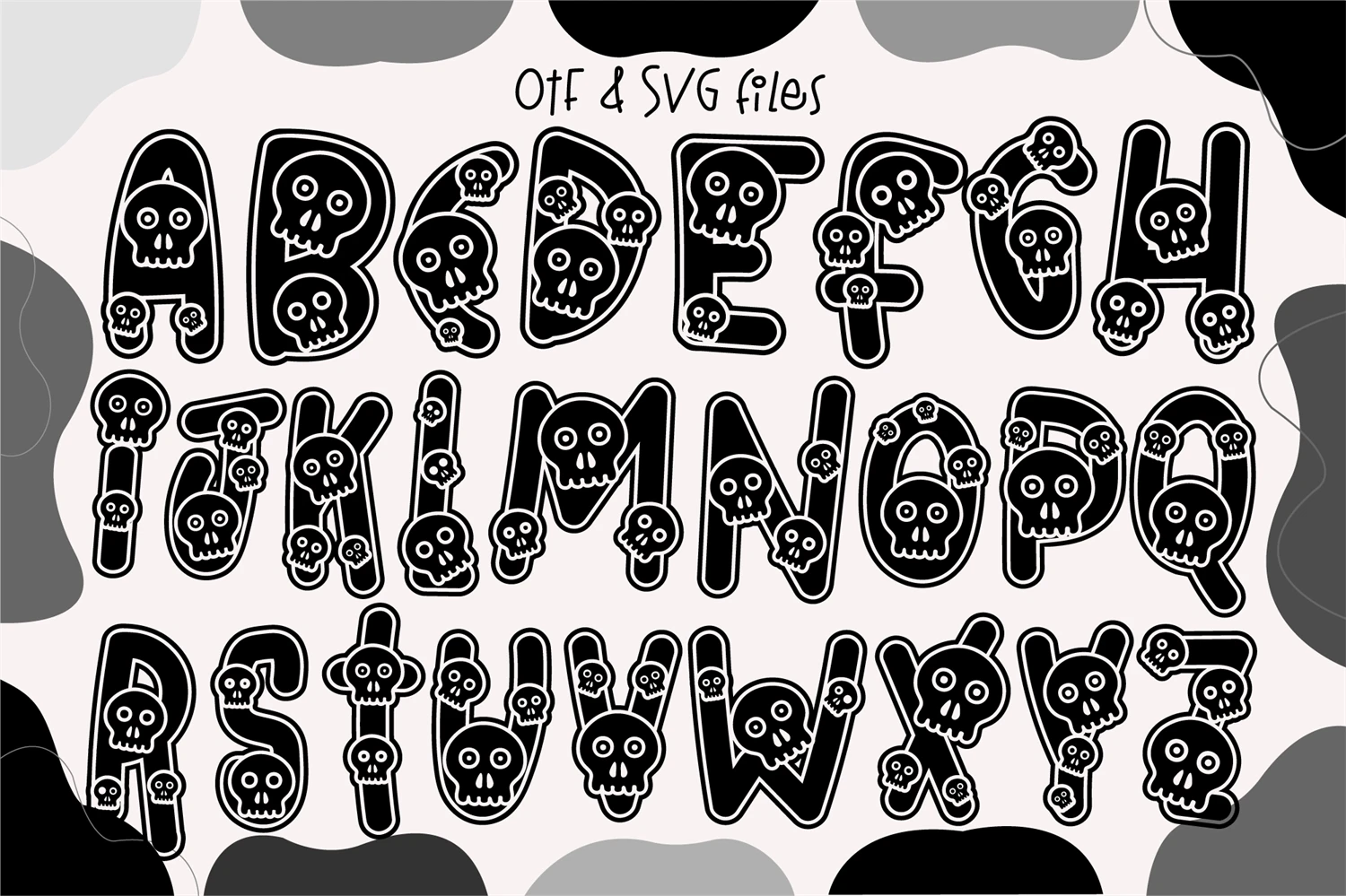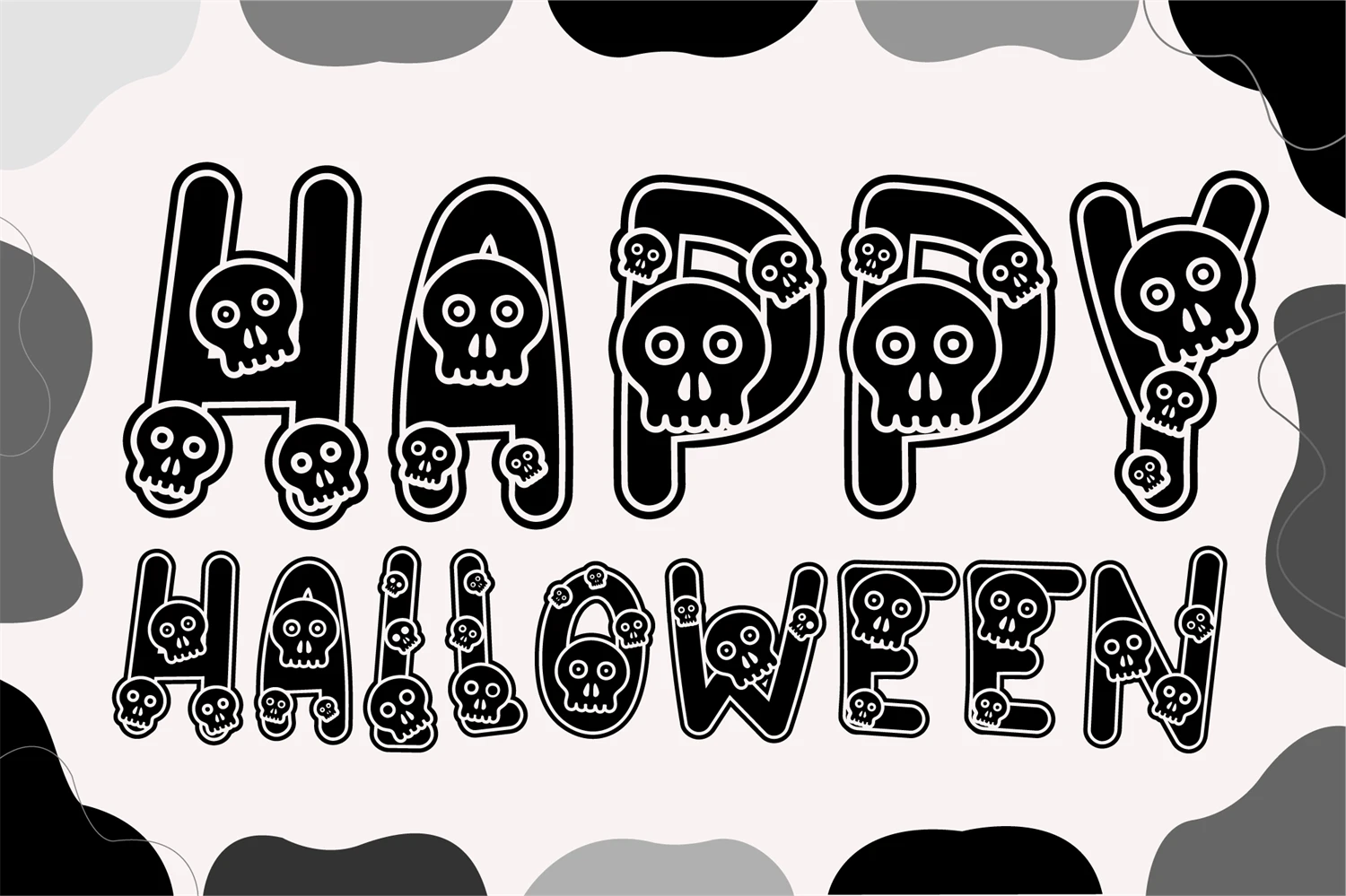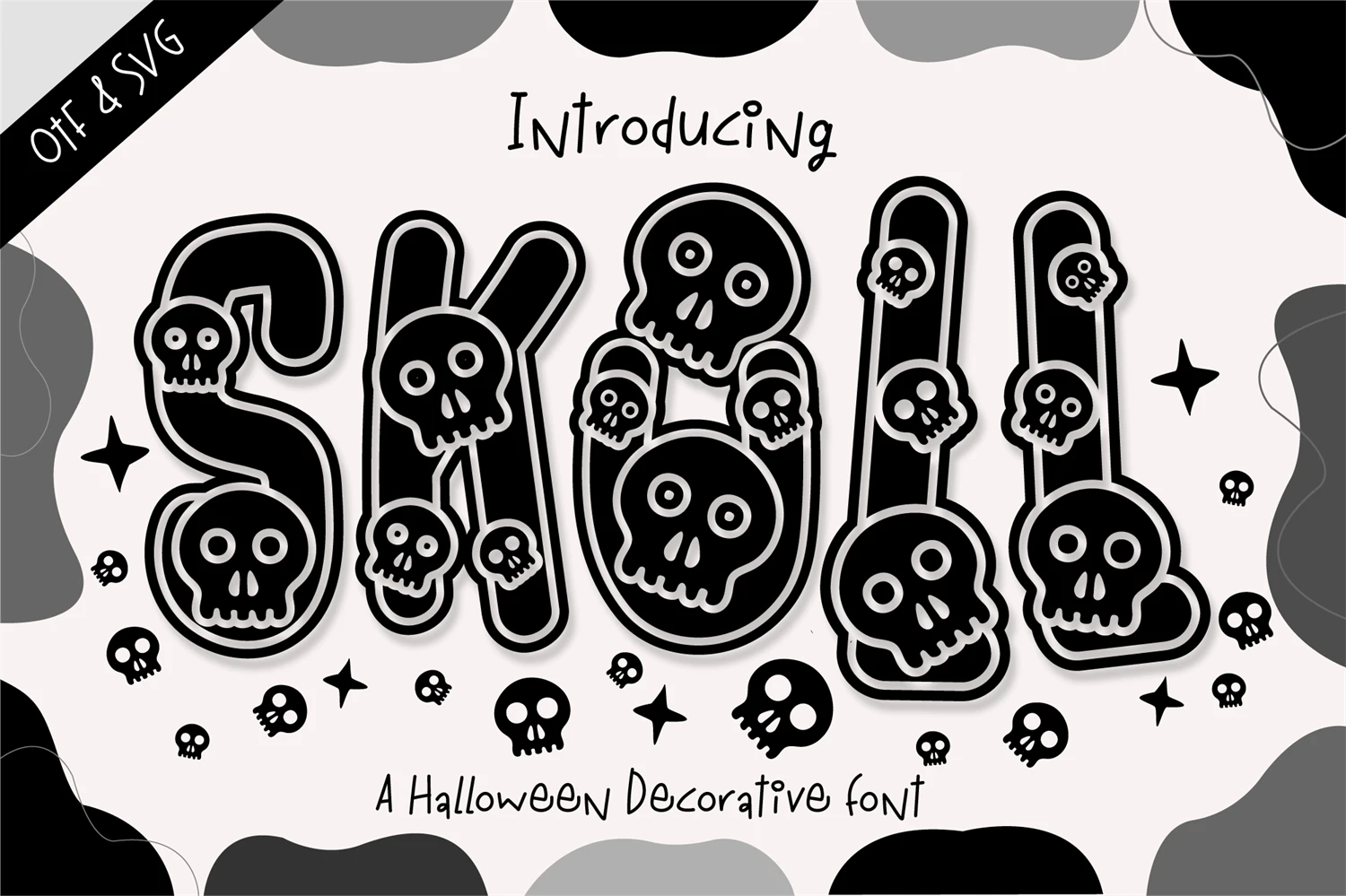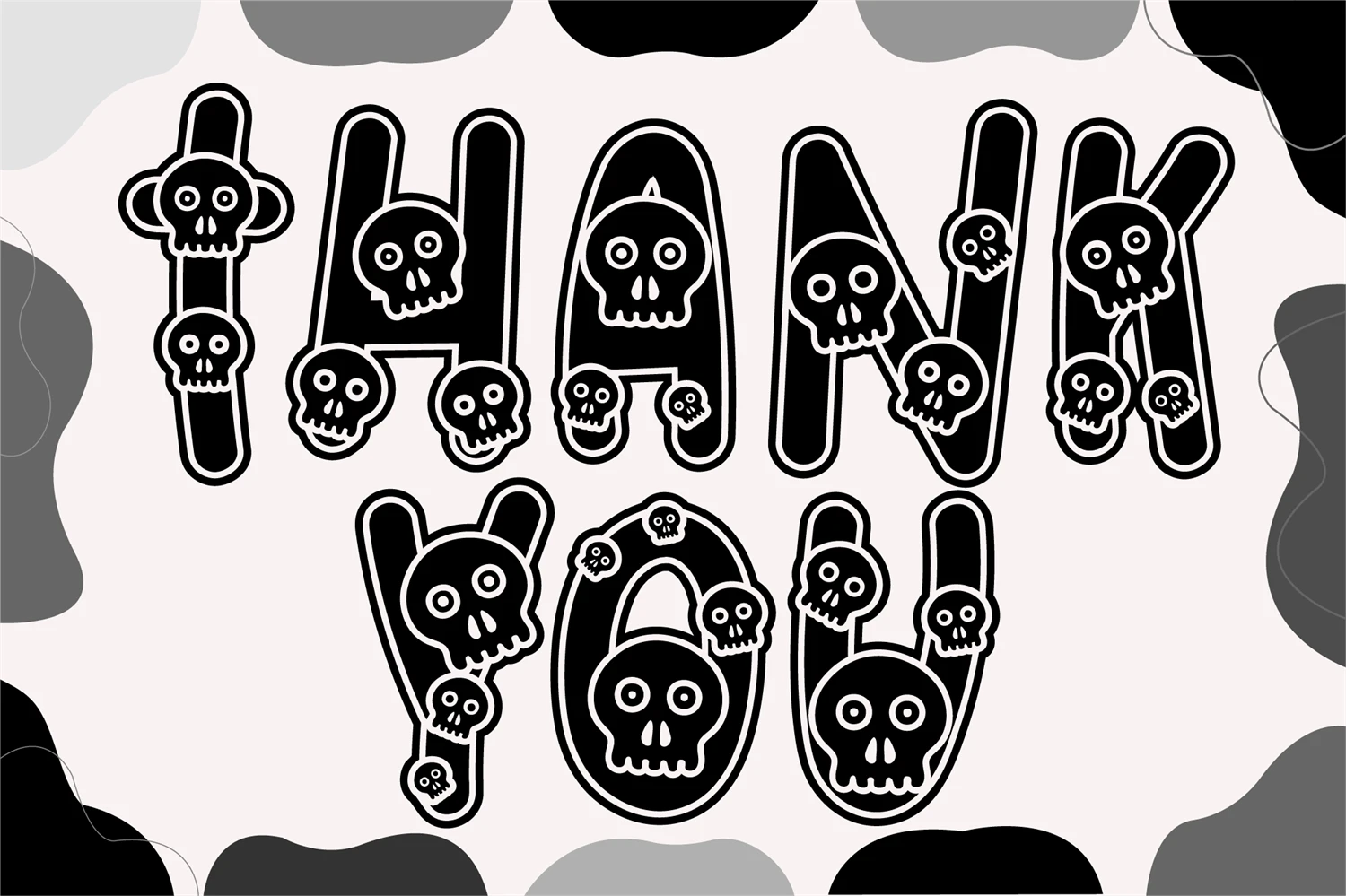
Skull Font is a captivating and Cute Halloween decorative font that adds a playful and enchanting touch to your designs. This delightful font features charmingly designed skulls with a whimsical twist, making it perfect for Halloween-themed projects, spooky invitations, eerie decorations, and so much more.